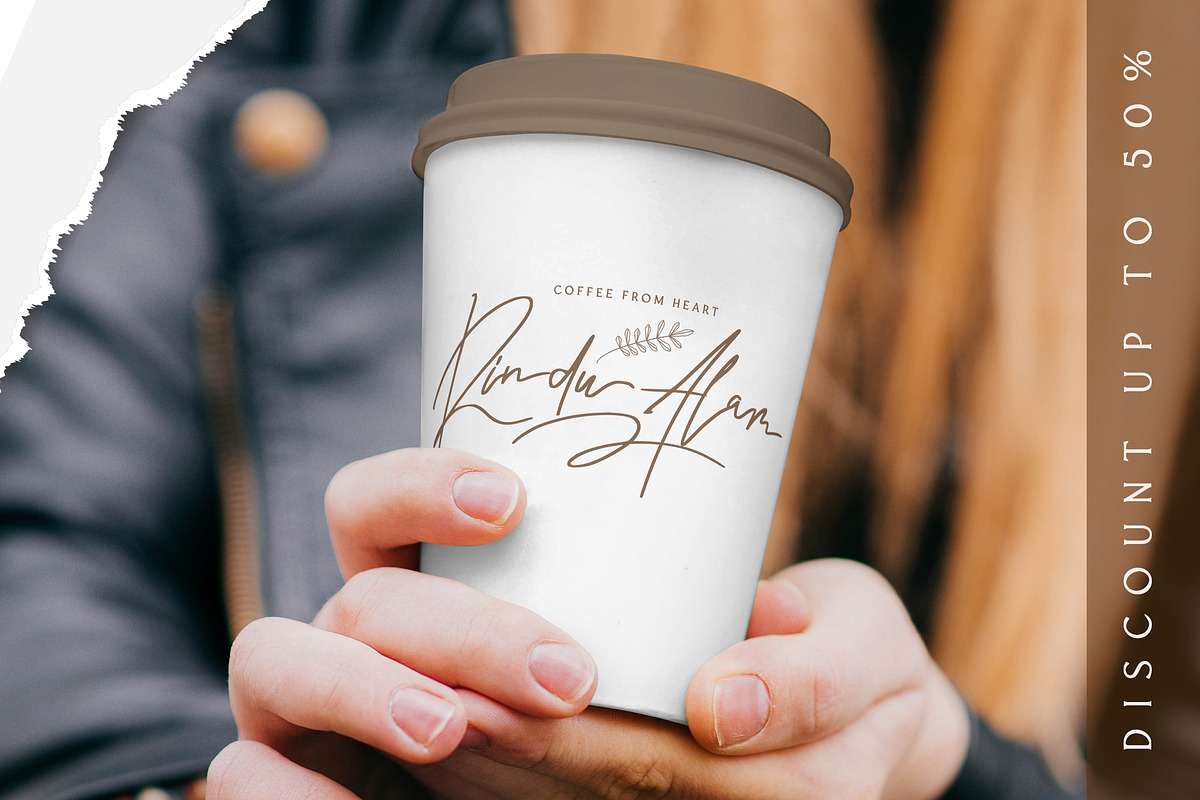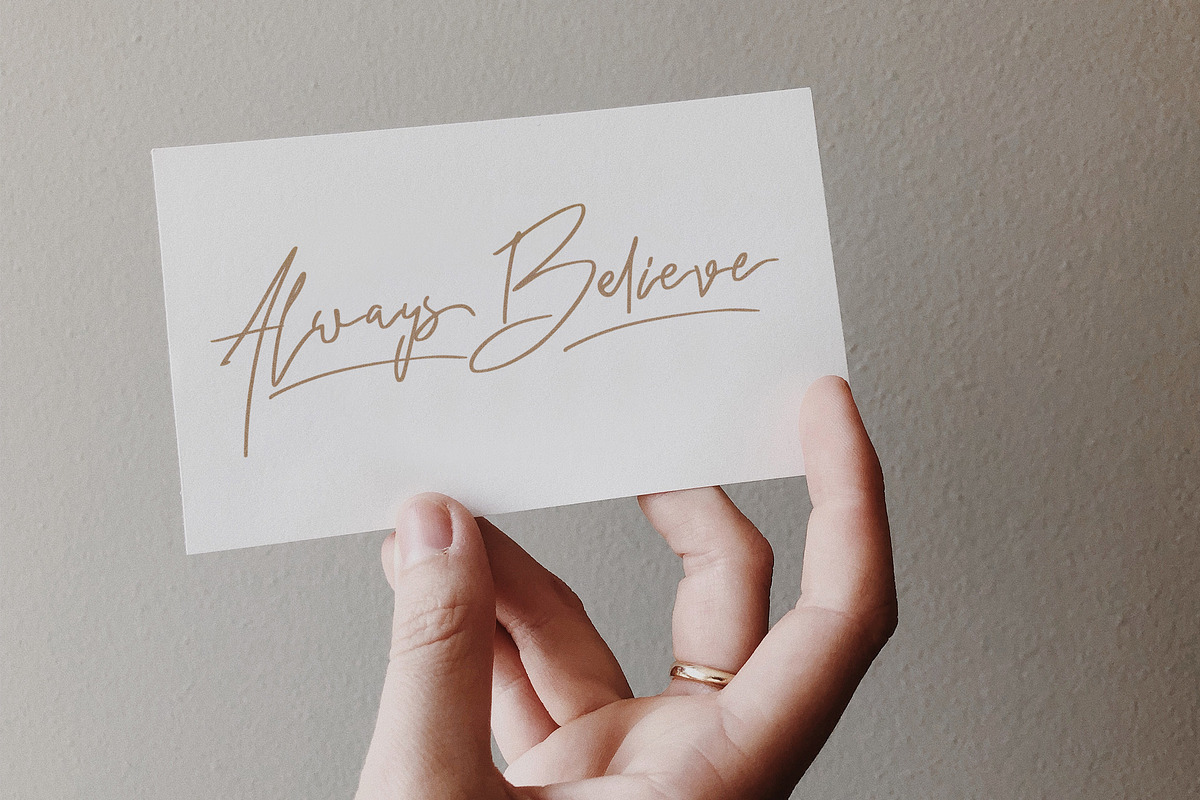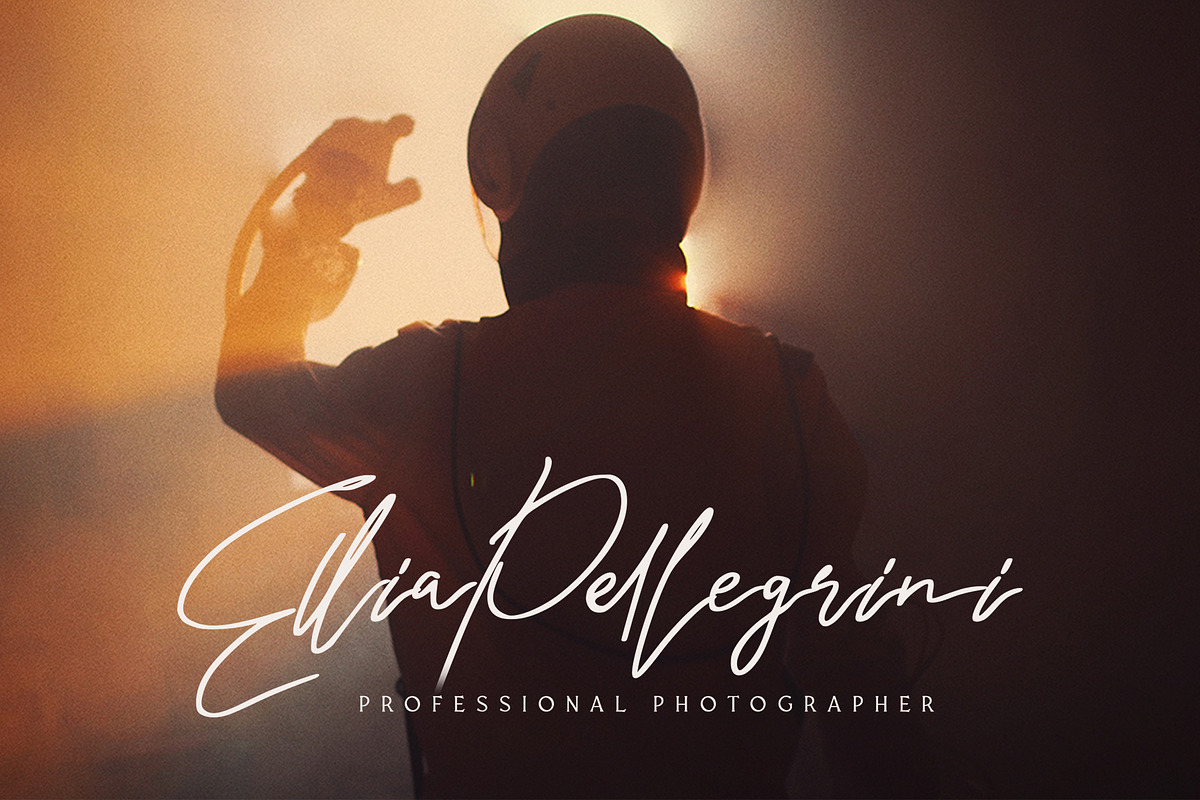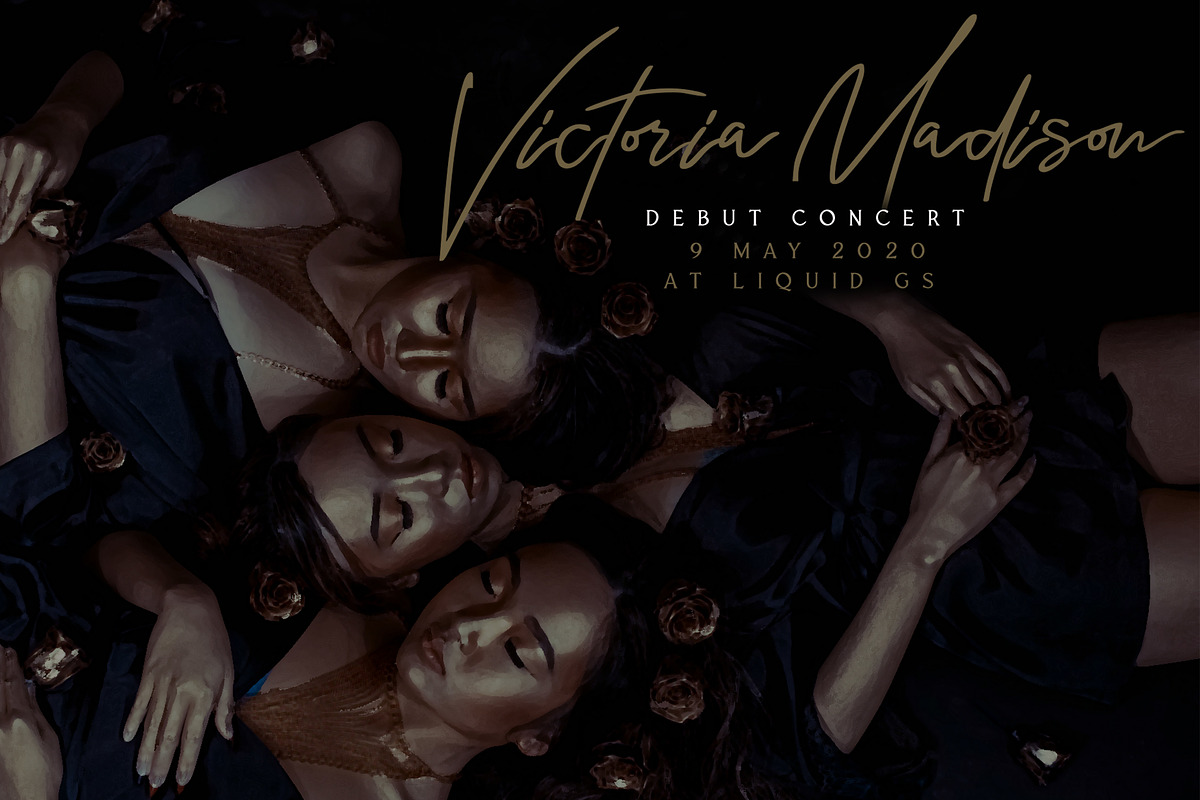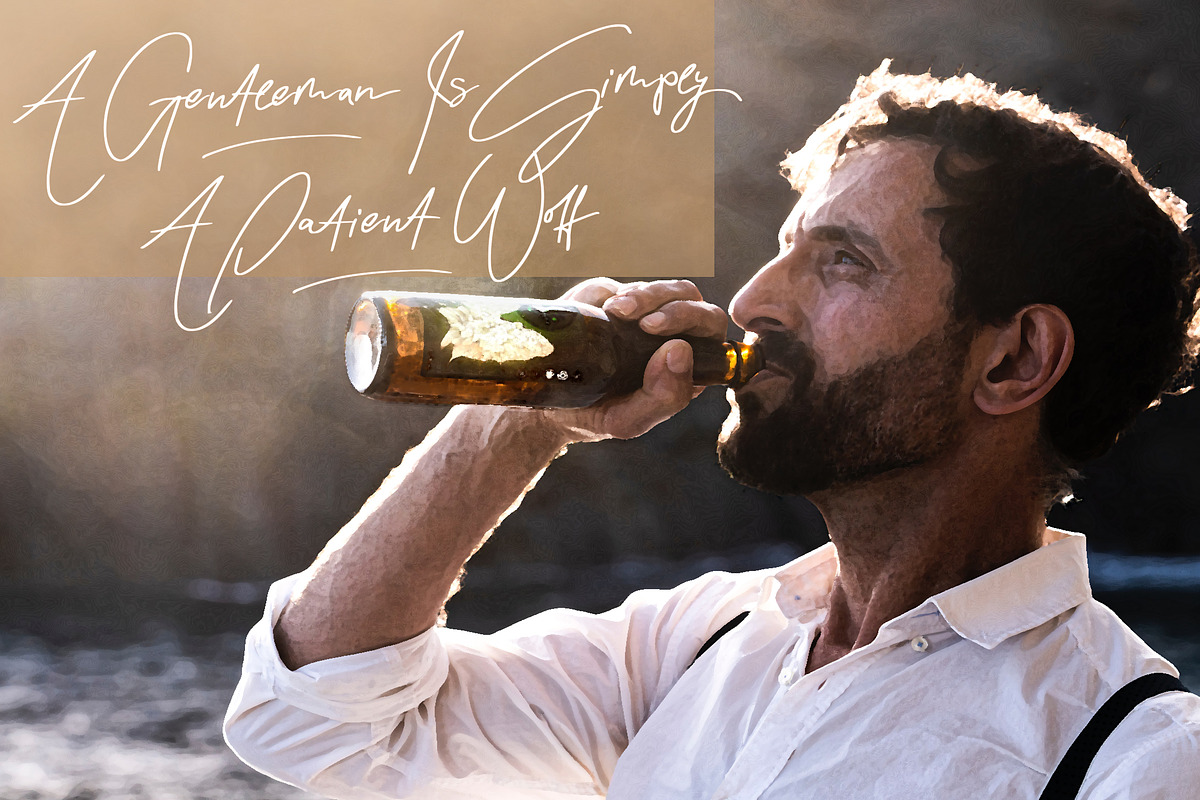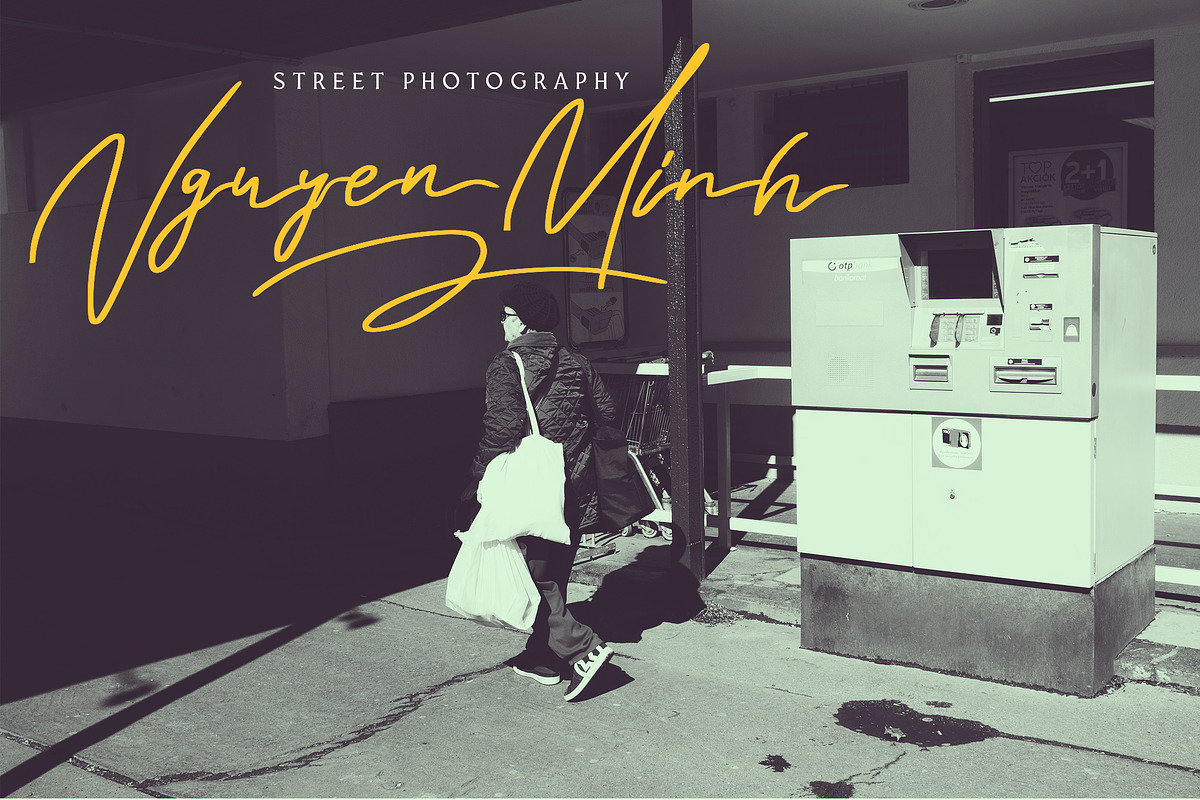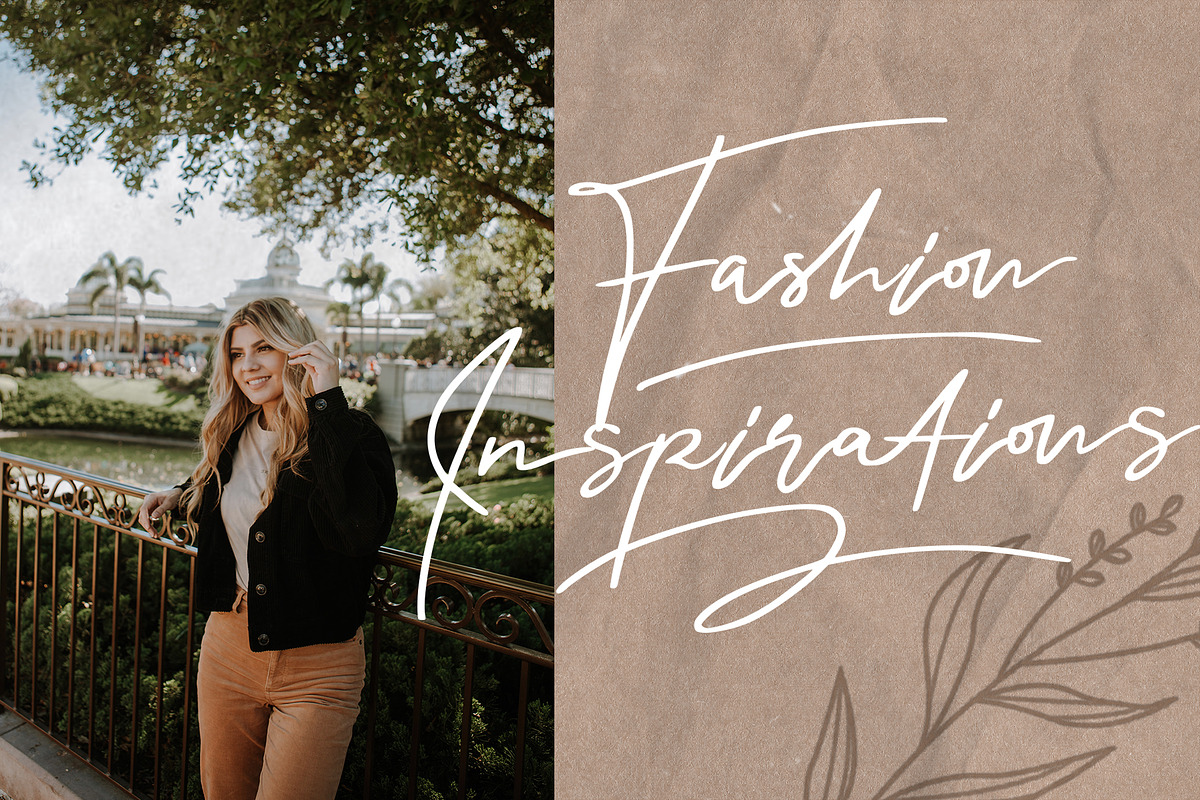
Rindu Alam - Signature Script Font
Introducing Rindu Alam - Signature Script Font
Rindu Alam is a Signature Script Font with Modern Style. This font is perfect for fashion brand, wedding invitation, business card, logo brand, signature, and also calligraphy.
- This Font Template contains Classy, Elegant, Creative, Cool and has a Unique Concept.
Why Rindu Alam - Signature Script Font is worth a look
Rindu Alam - Signature Script Font by StringLabs fits naturally into Branding, posters, packaging, typography.